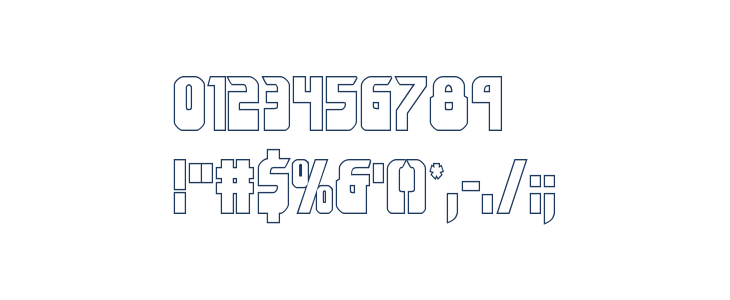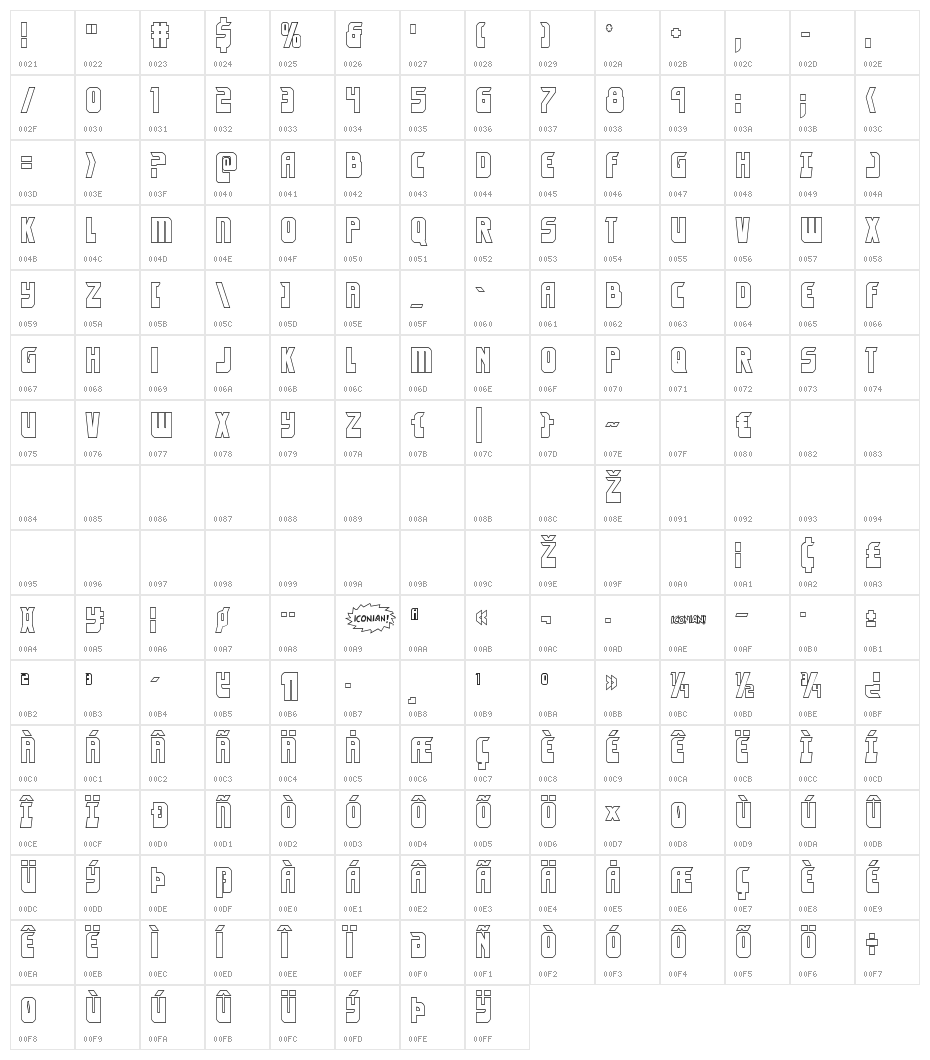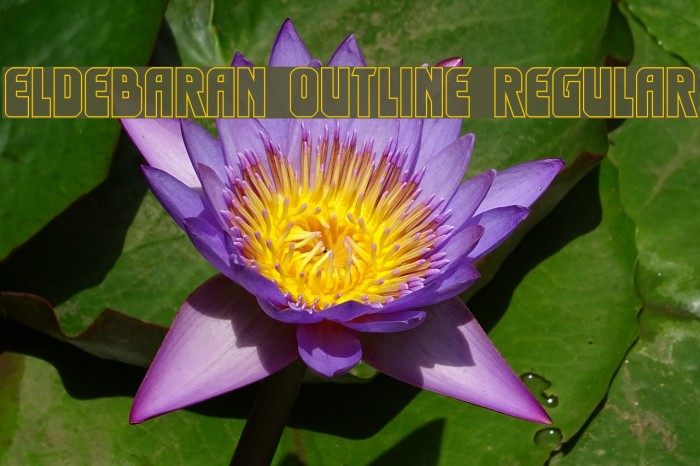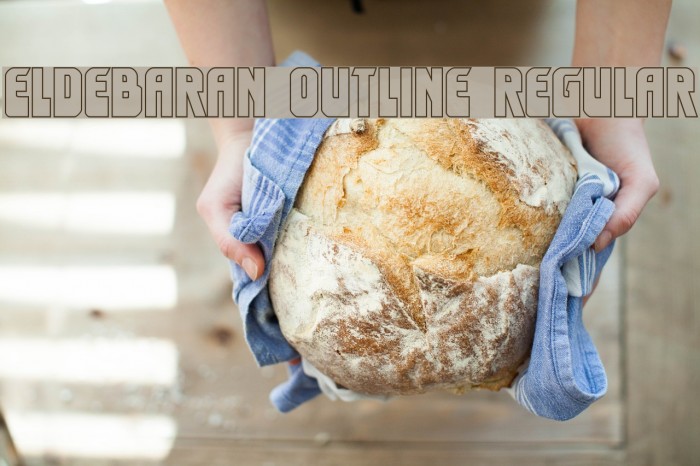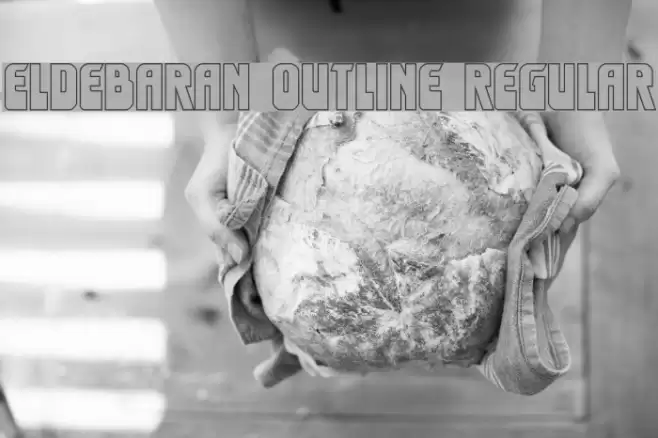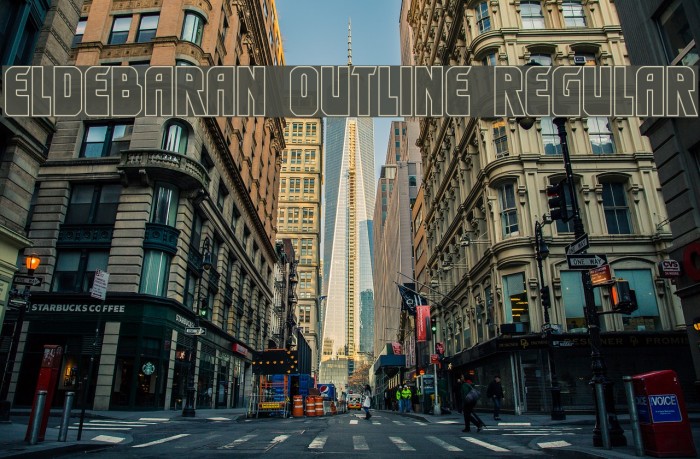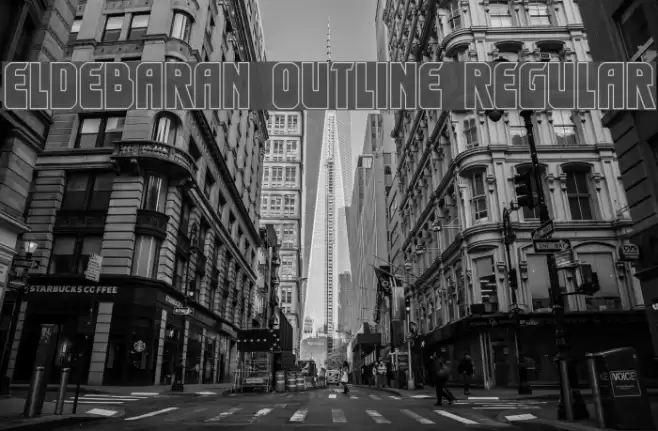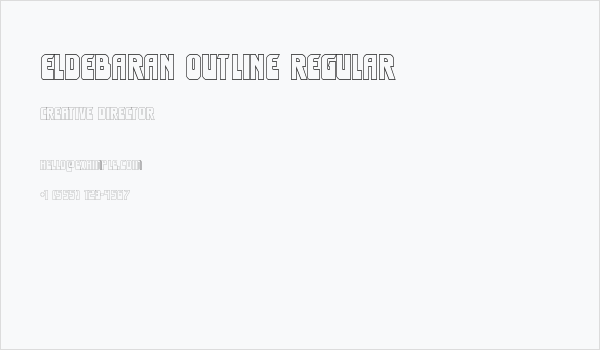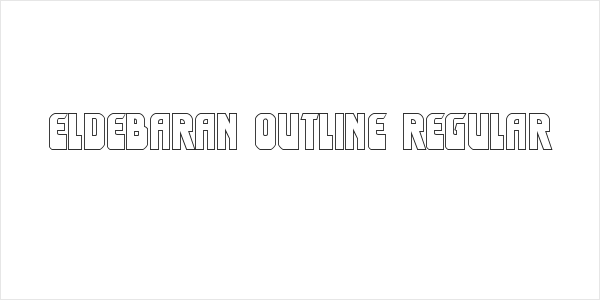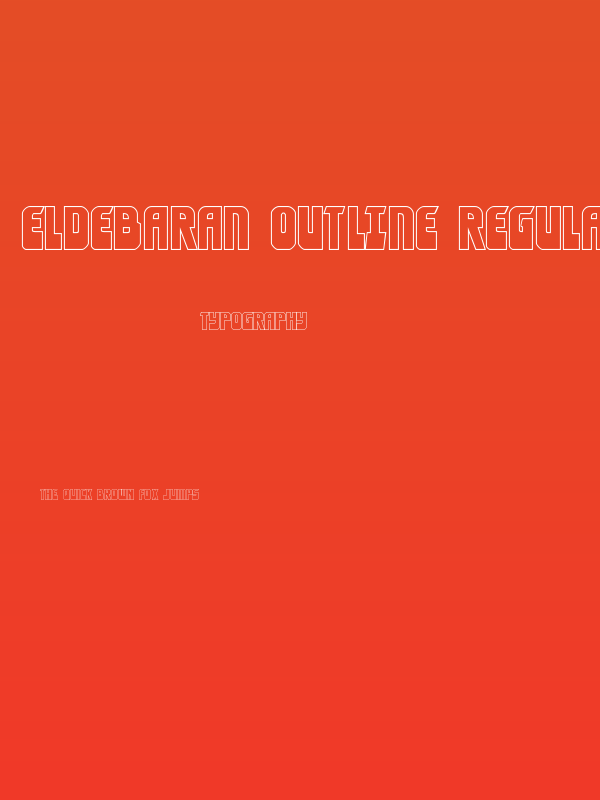
Eldebaran Outline Regular Font
Eldebaran Outline Regular Description
This font features a bold, geometric outline style that emphasizes its modern and futuristic aesthetic. The characters are constructed with clean, straight lines and sharp angles, creating a sense of precision and clarity. The uppercase and lowercase letters maintain a consistent height, contributing to a uniform appearance. The numerals and special characters are designed to match the overall style, ensuring cohesion across all elements. The outline nature of the font allows for creative use of color and background, making it versatile for various design applications.
| Proposed Projects | Ideal for projects such as branding, posters, headlines, and digital artwork where a modern and eye-catching look is desired. |